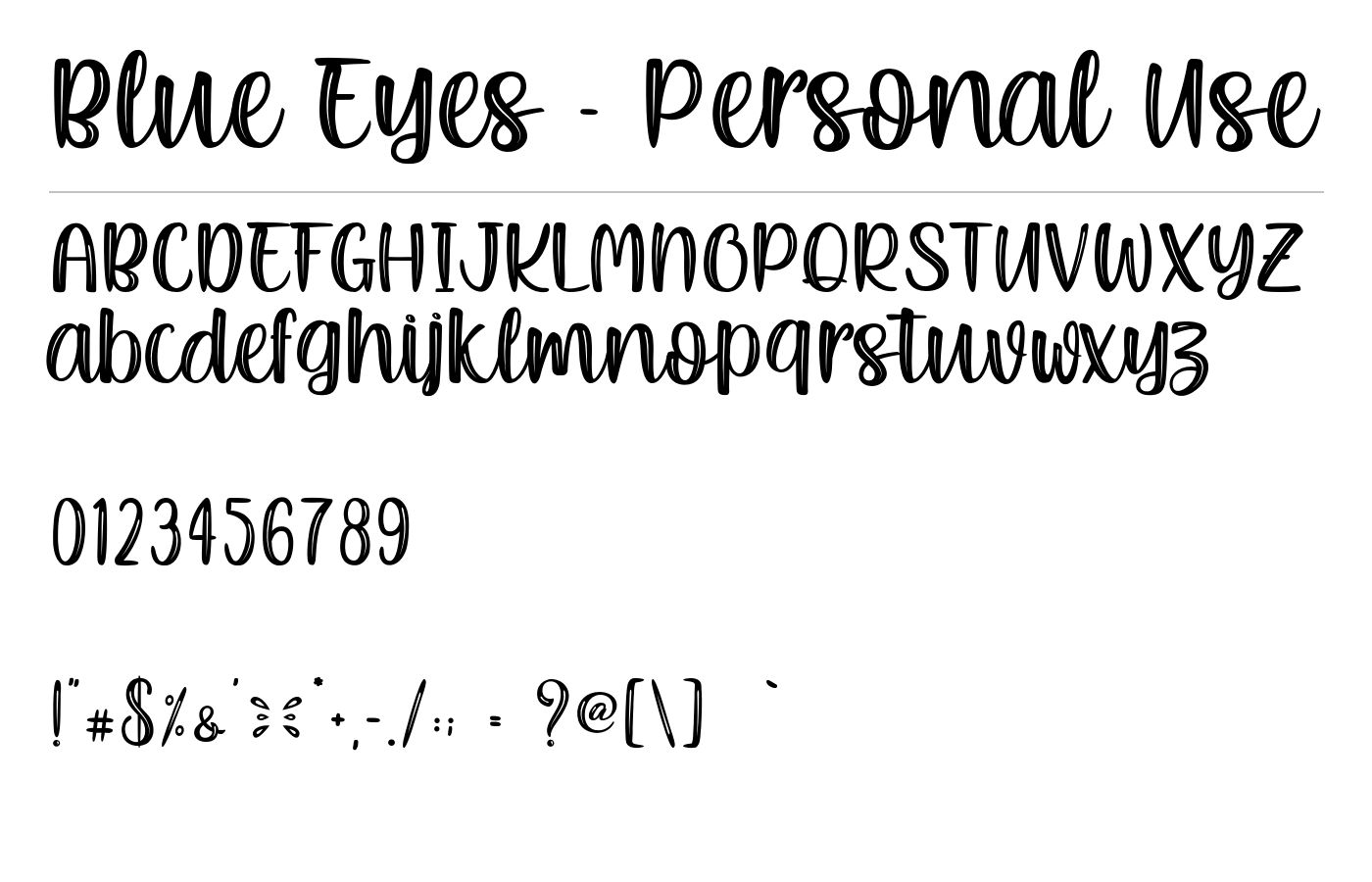
Blue Eyes is a playful, hand-drawn script font with a casual and friendly vibe. Featuring tall, slightly condensed letterforms with lively loops and varied stroke widths, it adds a personal touch ideal for informal branding, invitations, and creative projects that seek a warm, approachable feel. Its unique character shapes and clean legibility make it perfect for headlines and decorative text where charm and personality are key.
Blue Eyes - Personal Use Font
About Blue Eyes - Personal Use Font
| Font family | Blue Eyes - Personal Use Font |
| Designer | Typhoon Type - Suthi Srisopha |